Today, I would like to introduce “A Compilation of Contemporary Letter Designs.”
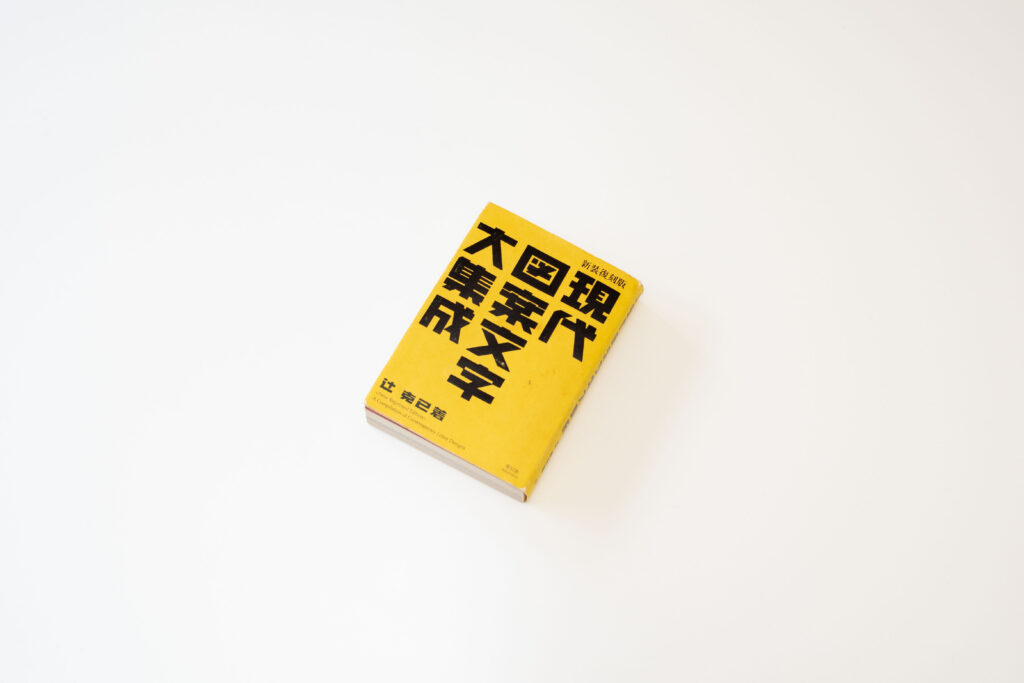
This is the new reprint edition of “A Compilation of Contemporary Letter Designs,” originally published in 1934.
Various characters composed by designers in the early Showa era are collected in seven chapters of designed characters, as well as characters in film theater advertisement characters, products, typeface, and print. Also included are iroha characters (47 kana characters expressed in pattern), alphabetical character design, monograms, and marks. The work is described from corner to corner on all pages, resulting in considerable volume despite the book’s small size.
How would you like to experience the creator’s intentions at the time through the characters while looking at the detailed processing and course of design?